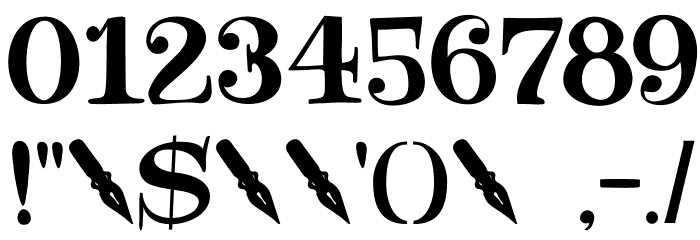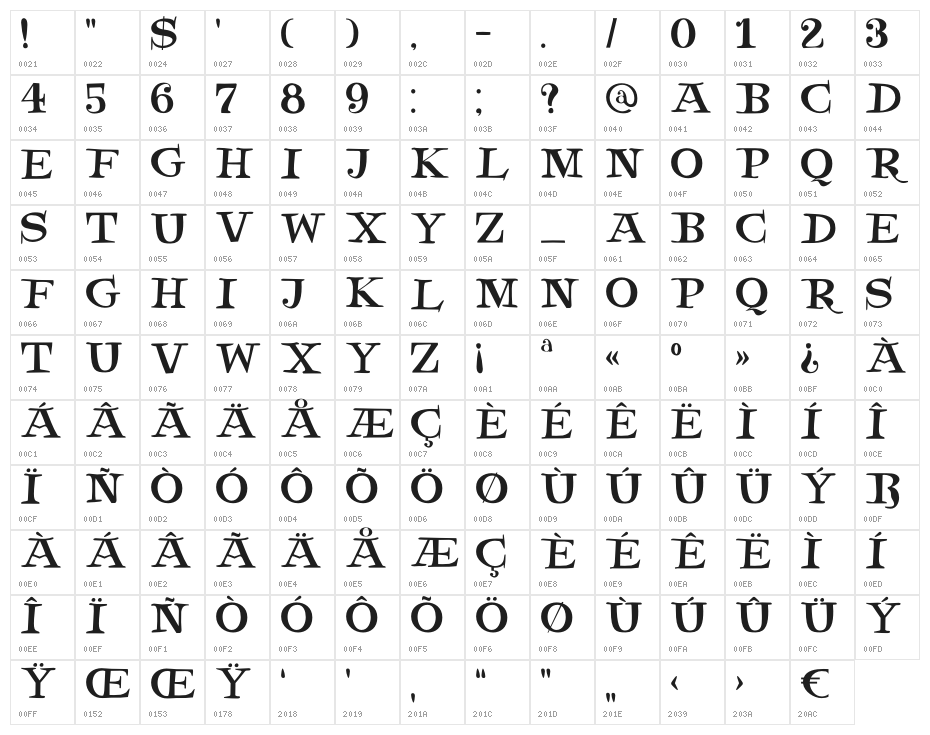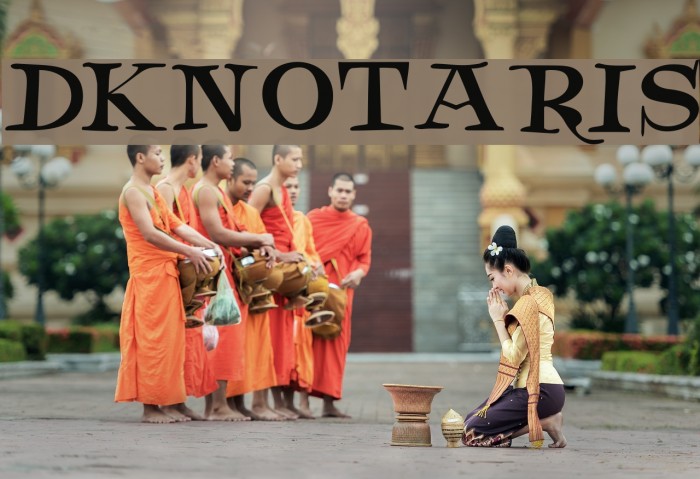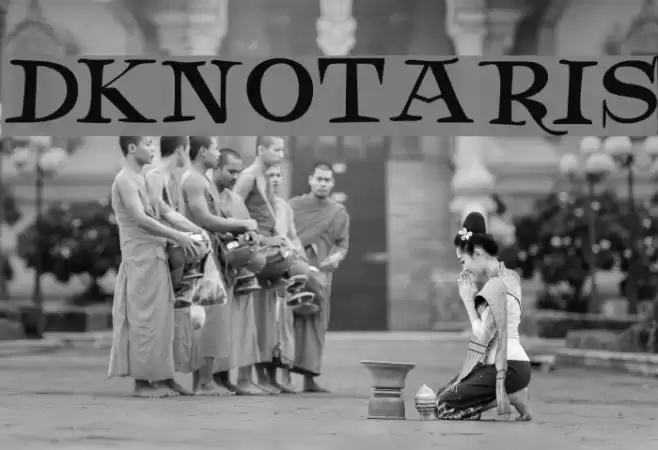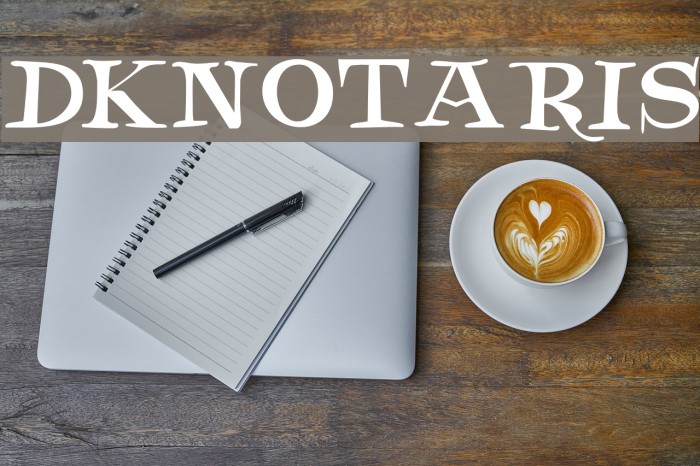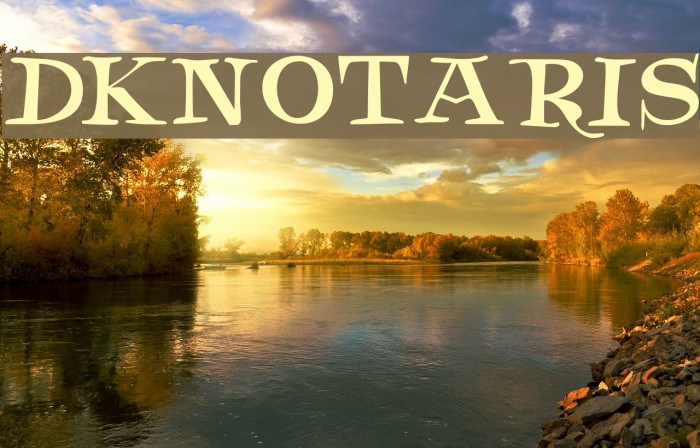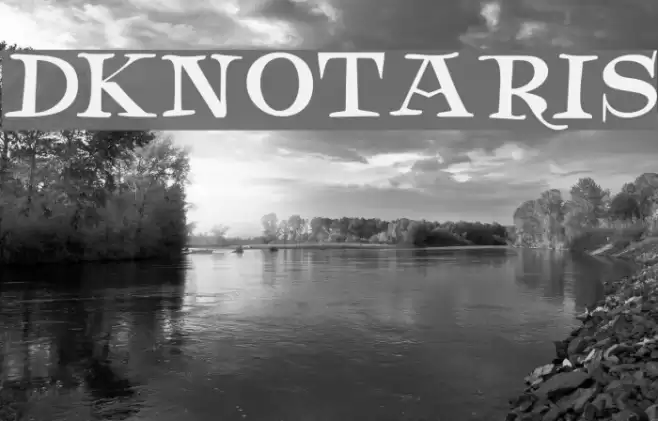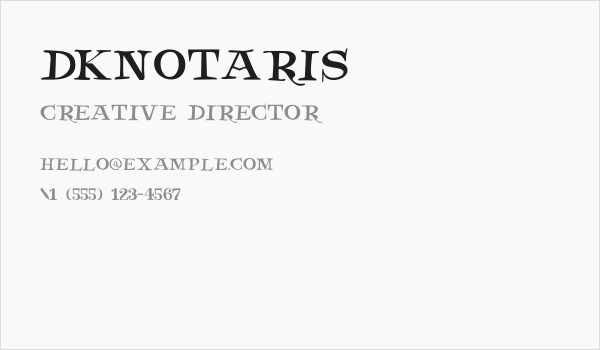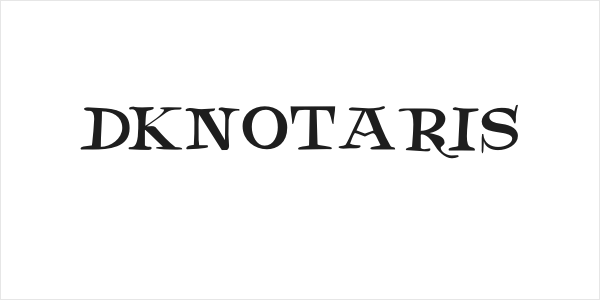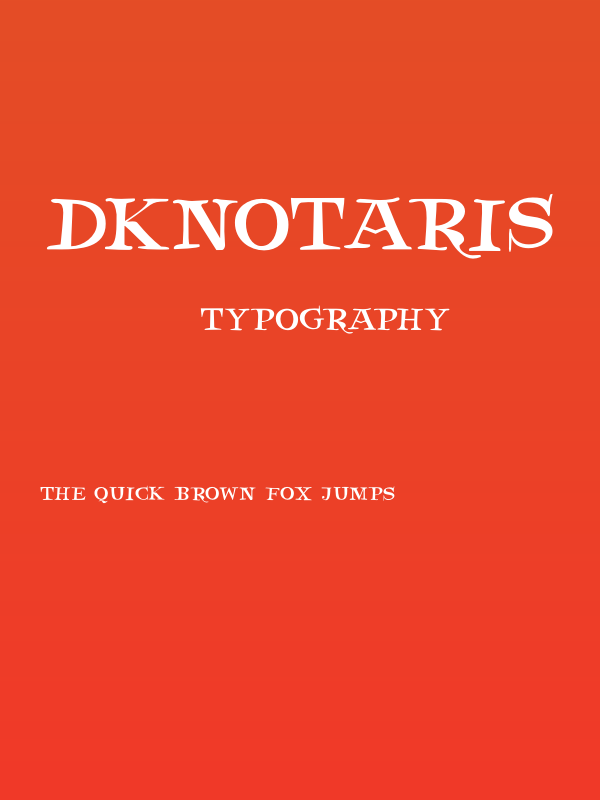
DKNotaris Font
DKNotaris Description
This font features a distinctive and bold style with sharp, angular serifs and a slightly condensed form. The characters exhibit a high contrast between thick and thin strokes, giving it a dramatic and elegant appearance. The uppercase letters are particularly striking, with unique embellishments that add a touch of sophistication. The numerals are equally bold, maintaining the same high contrast and stylistic flair. Special characters are creatively designed, incorporating elements that enhance the overall aesthetic. This font is ideal for projects that require a strong visual impact and a sense of formality.